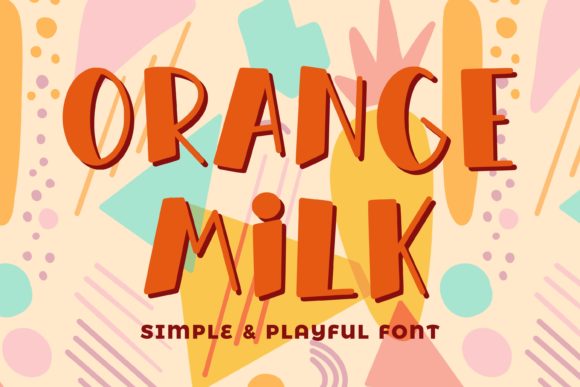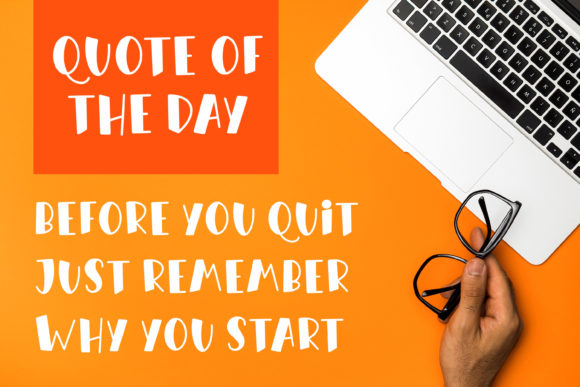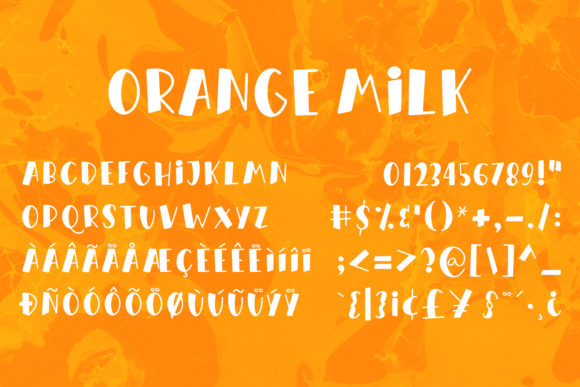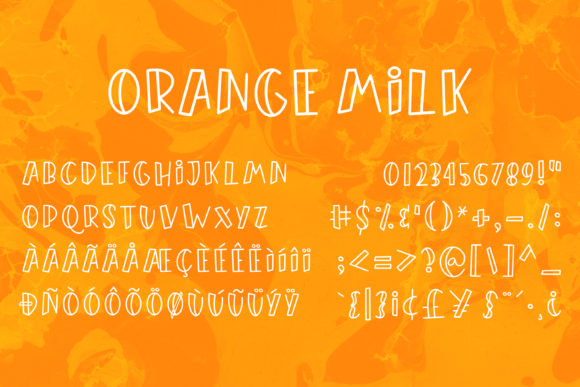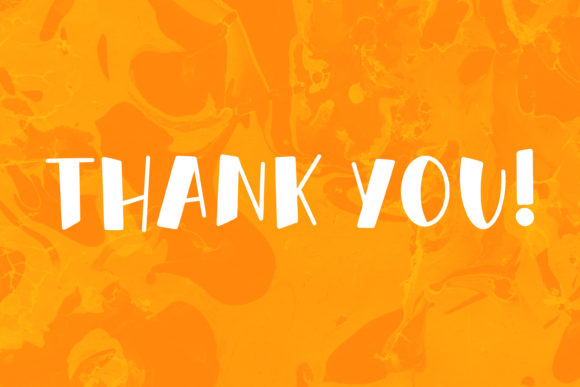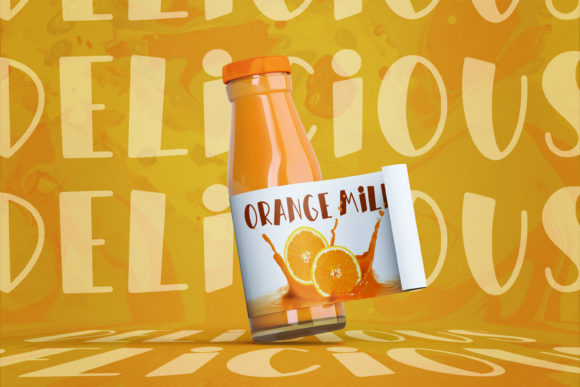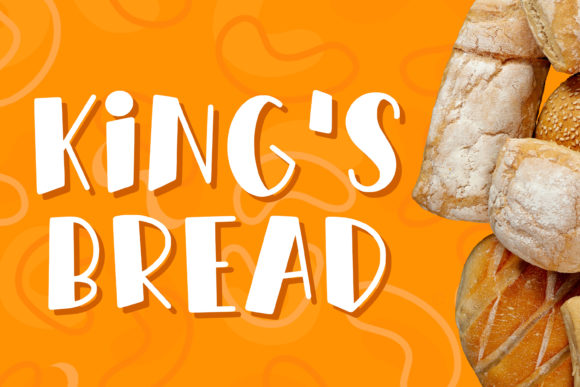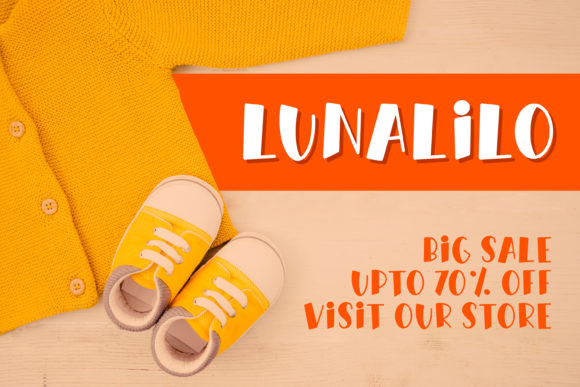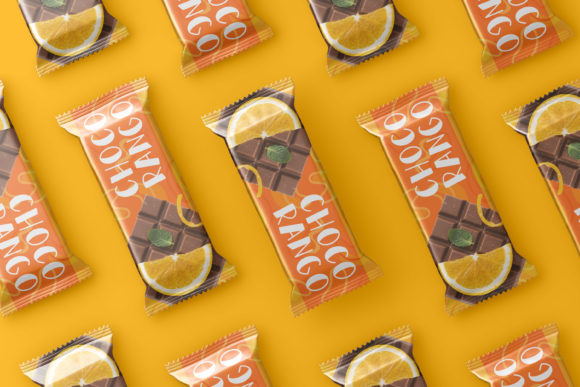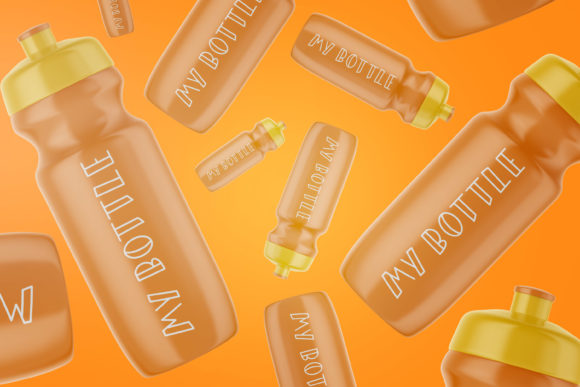
HomeScript FontsOrange Milk Font Script Fonts Orange Milk Font FacebookXPinterestWhatsApp Orange Milk Font Poster 2 Orange Milk Font Poster 3 Orange Milk Font Poster 4 Orange Milk Font Poster 5 Orange Milk Font Poster 6 Orange Milk Font Poster 7 Orange Milk Font Poster 8 Orange Milk Font Poster 9 Orange Milk Font Poster 10 Orange Milk Font Poster 11 Orange Milk Font Poster 12 Orange Milk Font Poster 13 About Orange Milk Font Orange Milk is a quirky and fun script full of charm. It will take any DIY-project to the next level! DOWNLOAD ON CREATIVE FABRICAThis font is sold and delivered by Creative Fabrica. Font Canyon may earn a commission if you buy through this link. People also explored Rodriguesta Font Horrorshow Font Baby Cat Font Gamila Font My Honey Font Bender Font Cassandra Font Tropico Font Animals Silhouette Font 331 0 TagsOrange Milk Font Previous articleAvocado Creamy FontNext articleGladiolus Font LEAVE A REPLY Cancel reply Comment: Please enter your comment! Name:* Please enter your name here Email:* You have entered an incorrect email address! Please enter your email address here Website: Save my name, email, and website in this browser for the next time I comment. Personal Use Free Hello December Personal Use Free Read more about this font Blue Highway Personal Use Free Read more about this font Trunk Shaped Personal Use Free Read more about this font Stronger Personal Use Free Read more about this font BLOG Free Fonts Risk: Why Free Fonts Can Be Dangerous for Designers Free Fonts Risk: Why Free Fonts Can Be Dangerous for Designers Using free fonts is a common practice in web and graphic design. However, the... Exploring Font Trends Modern Sans-Serif Fonts That Brands Love in 2025 To increase your work productivity, choose the most readable fonts.